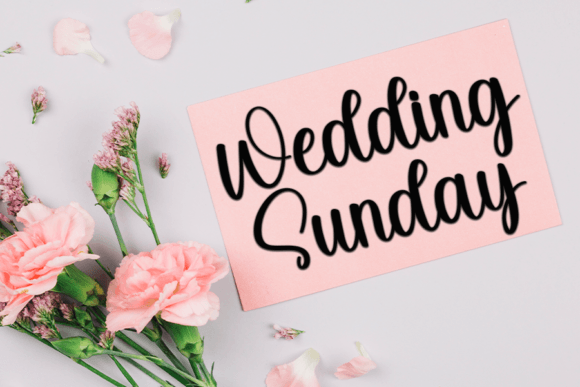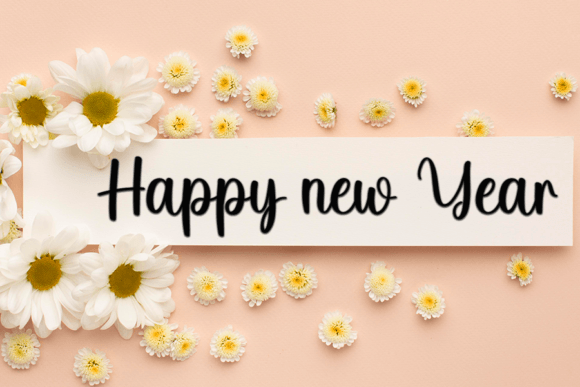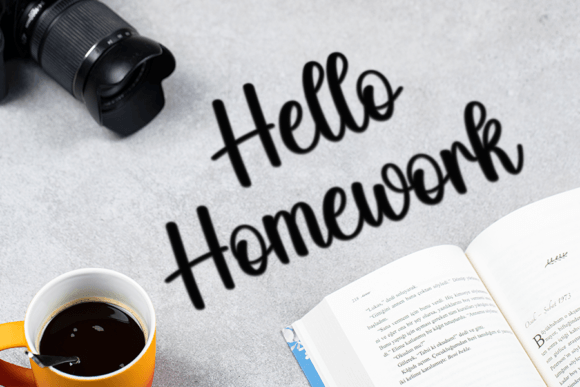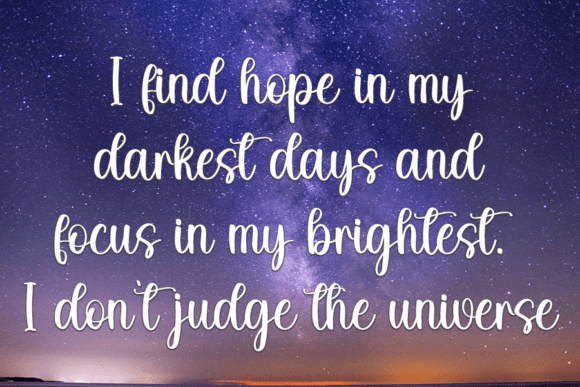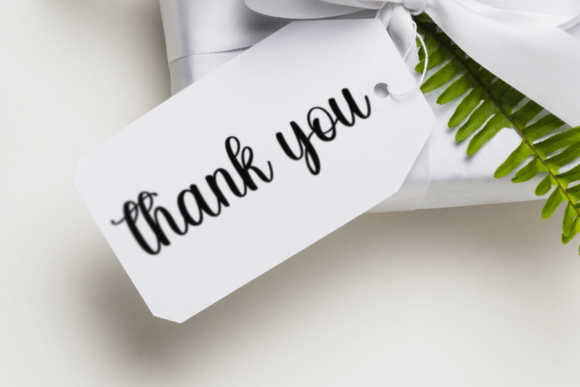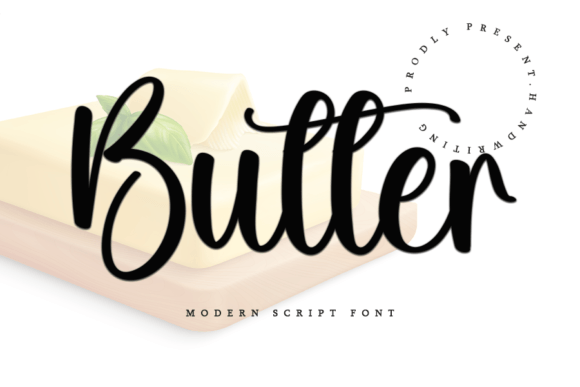
Introducing Butter Font: Elevate Your Designs with Elegance and Class
In the world of typography, fonts play a crucial role in conveying the tone and personality of a design. For designers and crafters looking to add a touch of sophistication and elegance to their projects, the Butter Font is an excellent choice. This trendy handwritten font boasts a contemporary atmosphere and impeccable form, drawing inspiration from timeless classic calligraphy.
The Story Behind Butter Font
Butter Font is a carefully crafted typeface that combines the beauty of traditional calligraphy with modern design sensibilities. Its creators aimed to develop a font that would not only be visually stunning but also highly versatile, suitable for a wide range of design applications. Whether you’re working on a branding project, packaging design, or digital content, Butter Font is poised to elevate your work with its refined and polished aesthetic.
Key Features of Butter Font
- Handwritten with a Personal Touch: Butter Font is characterized by its handwritten style, which adds a personal and intimate feel to any design. Its unique letterforms are carefully drawn to create a sense of warmth and approachability.
- Contemporary yet Classic: This font strikes the perfect balance between modern trends and classic elegance. Its contemporary atmosphere makes it suitable for designs that require a fresh and current look, while its classic undertones ensure it remains timeless and sophisticated.
- Impeccable Form: One of the standout features of Butter Font is its impeccable form. Each letter is meticulously designed to ensure clarity and readability, making it an excellent choice for both headings and body text.
- Versatility: Butter Font is incredibly versatile, suitable for a variety of design projects including but not limited to logos, brochures, posters, and digital content. Its elegance and class can enhance any design, making it more engaging and impactful.
Why Choose Butter Font?
For designers and crafters, selecting the right font can be a daunting task. Here are several reasons why Butter Font stands out from the crowd:
- Elegance and Sophistication: Butter Font brings an unparalleled level of elegance and sophistication to any design. Its classic undertones and modern style make it an ideal choice for projects that require a refined look.
- Easy to Read: Despite its elegant and handwritten nature, Butter Font maintains high readability. This makes it perfect for designs that require a balance of style and substance.
- Unique and Memorable: In a sea of generic fonts, Butter Font offers a unique and distinctive look that can help your designs stand out. Its memorable style ensures that your work leaves a lasting impression on viewers.
Using Butter Font in Your Designs
Incorporating Butter Font into your design projects is straightforward. Here are a few tips to maximize its impact:
- Pair with Complementary Fonts: For maximum effect, consider pairing Butter Font with complementary fonts that enhance its elegance and readability.
- Experiment with Colors and Textures: Don’t be afraid to experiment with different colors and textures to further personalize your designs. Butter Font’s versatility makes it an excellent canvas for creative exploration.
- Maintain Consistency: For cohesive designs, maintain consistency in font usage across your project. This helps in reinforcing your brand’s message and aesthetic.
Butter Font is a remarkable addition to the world of typography, offering designers and crafters a unique blend of elegance, class, and contemporary style. Inspired by timeless classic calligraphy, it brings a level of sophistication and refinement to any design project. With its impeccable form, versatility, and memorable style, Butter Font is poised to become a favorite among professionals looking to elevate their designs. Whether you’re aiming to create a lasting impression or simply looking for a font that combines beauty with functionality, Butter Font is an excellent choice.